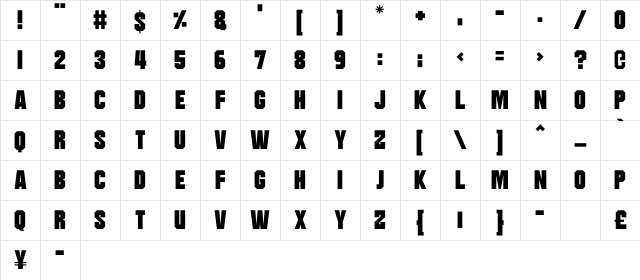
Moonbase Delta Regular Free Font
Moonbase Delta Regular
Design Context for Moonbase Delta
Moonbase Delta is a composed and adaptable typeface that performs quietly and consistently across a wide range of design contexts.
Pro Tip: Use Moonbase Delta in both headline and body roles to test its range before committing to a single application.